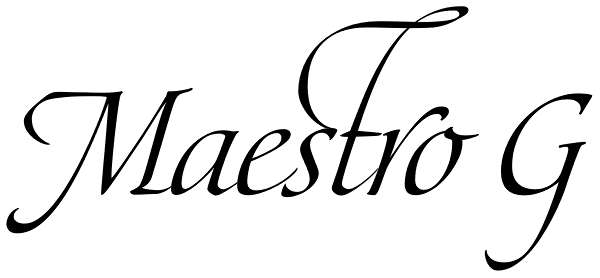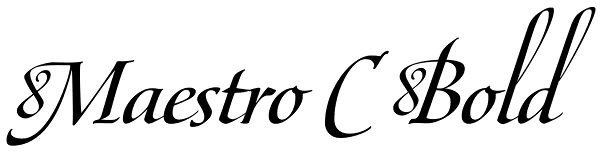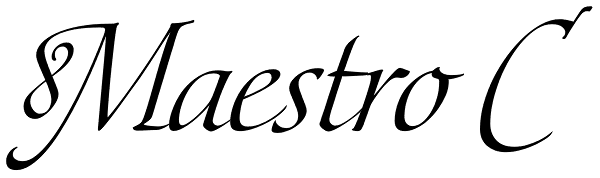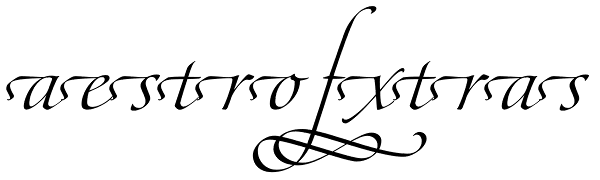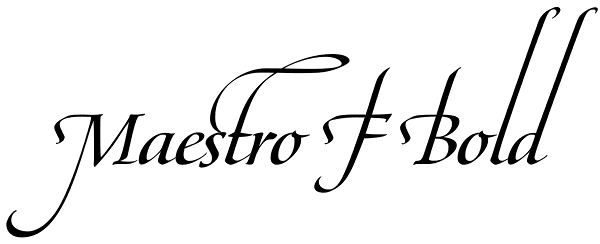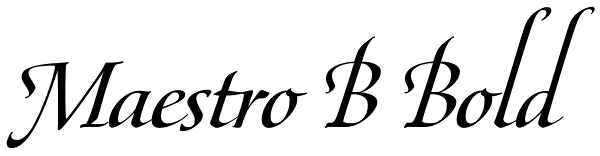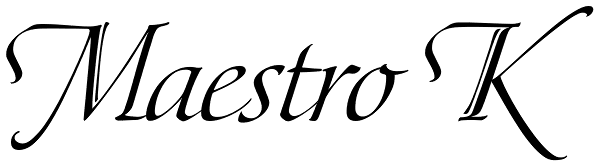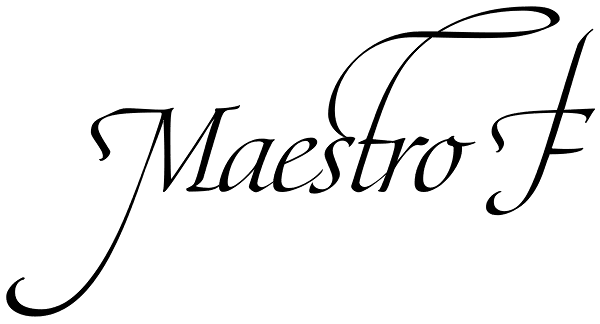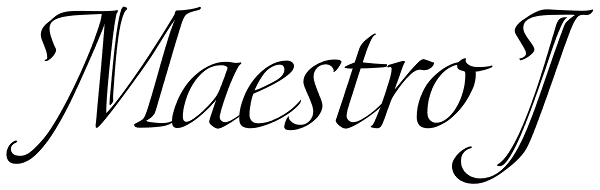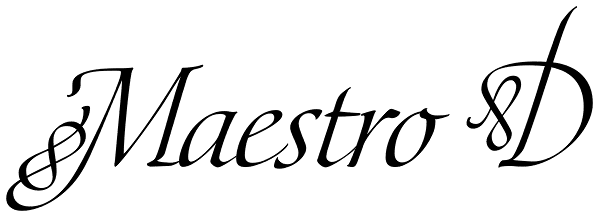
Maestro
Out of a lifelong inner struggle, Philip Bouwsma unleashes a masterpiece that reconciles classic calligraphy with type in a way never before attempted. Maestro takes its cue from the Italian chancery cursive of the early sixteenth century. By this...